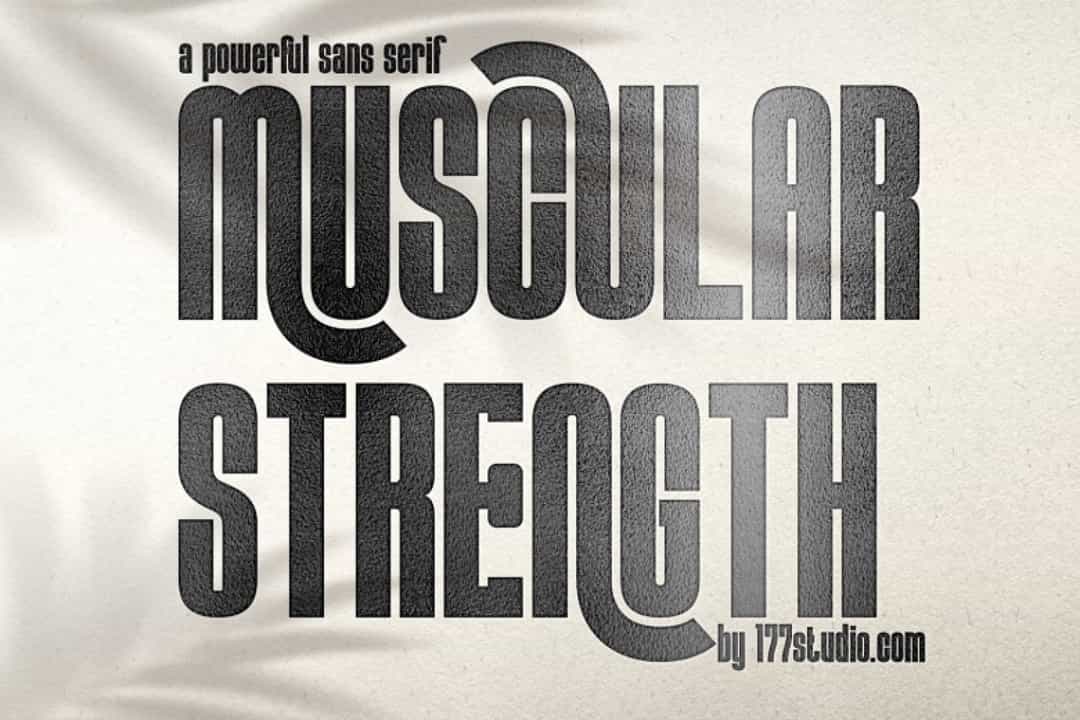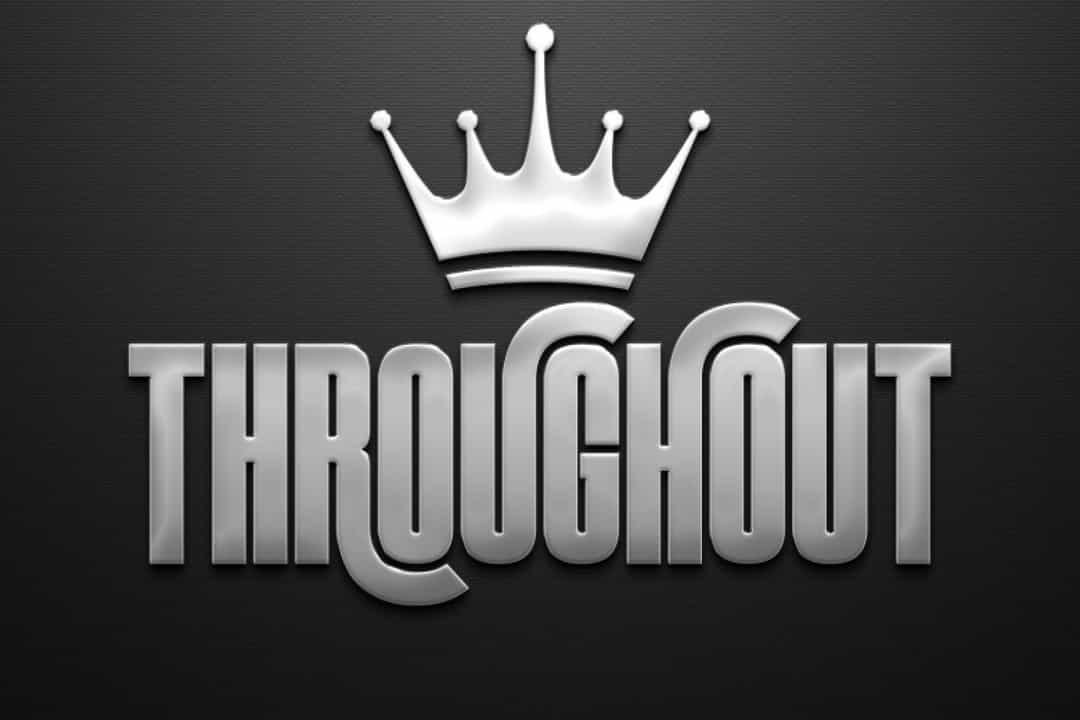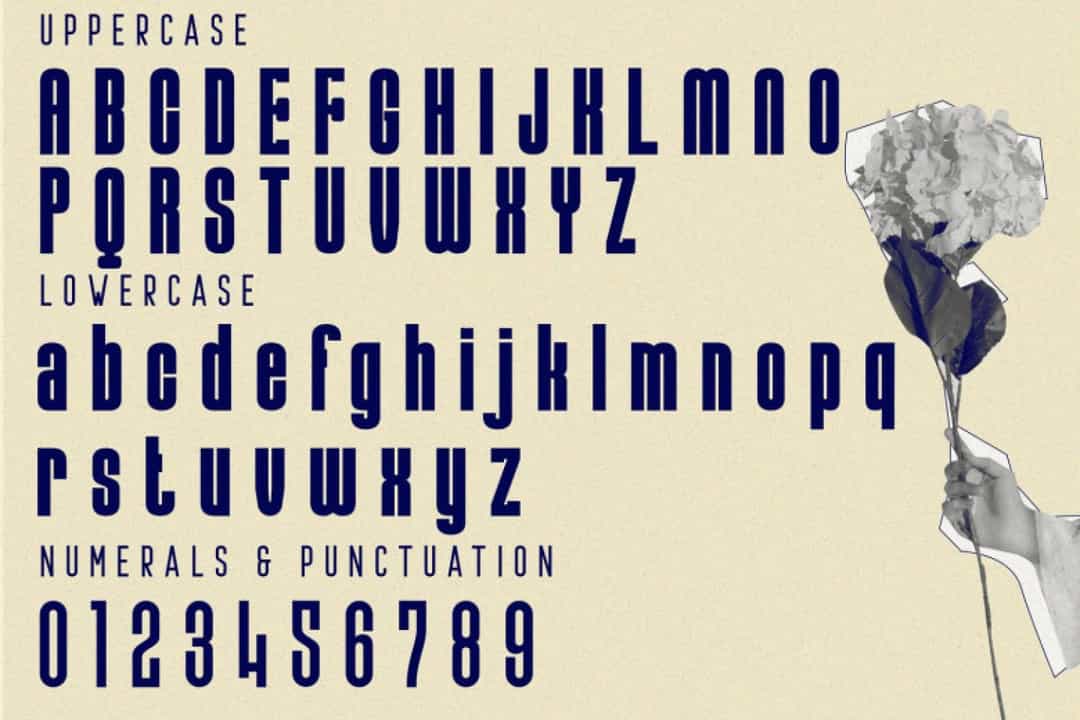
MUSCULAR Strength Font is an elegant condensed font without serifs that offers beautiful curves and patterns that make this font simple yet effective in designing stunning posters, books, social media headlines and other projects.